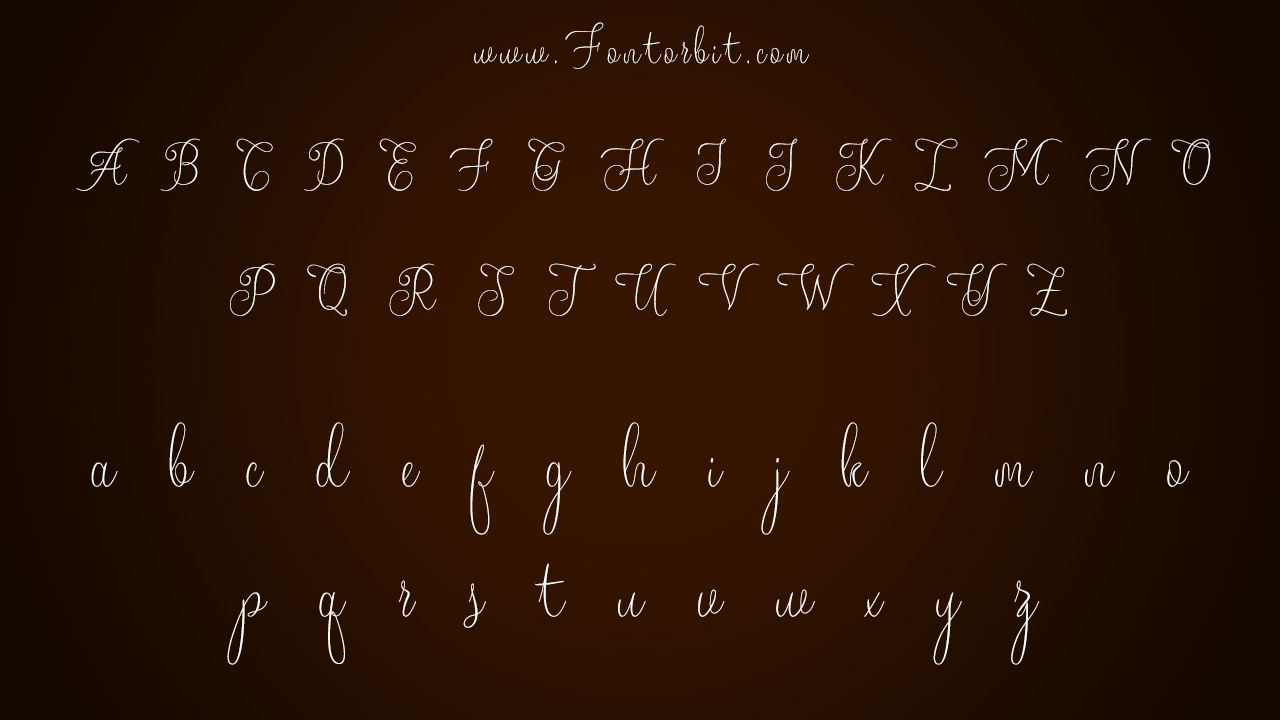
Yolanda Font is a stylish and elegant script typeface that embodies a blend of modern sophistication and classic charm. Inspired by hand-written calligraphy, this font captures the essence of graceful and fluid design.
Yolanda Font reflects a timeless and graceful style, featuring smooth, flowing lines and a varying baseline. The font family includes:
Yolanda Font’s elegant and versatile style makes it perfect for a variety of sophisticated and personal design projects. You will often see Yolanda Font in creative projects where a sophisticated and artistic touch is desired.
Its fluid design makes it a popular choice for elegant and high-impact contexts. Its unique design suits applications requiring a touch of modern luxury and personal flair.
- Wedding Invitations
- Personalized Stationery
- Fashion Designs
- Apparel Designs
Yolanda Font embodies a sophisticated and flowing design, reflecting elegance and modern charm. While it may not replicate any historical typeface, it captures the essence of refined script style. Pair Yolanda Font with clean, modern elements to create a balanced and eye-catching visual composition.
1.What Type Of Projects Is Yolanda Font Best Suited For?
Yolanda Font is ideal for elegant and high-impact projects such as wedding invitations, luxury branding, and stylish personal stationery. Its script style adds a touch of sophistication to any design.
2.What Is The Best Way To Use Yolanda Font In A Design?
Use Yolanda Font for prominent text elements, such as headings and invitations, to emphasize elegance and charm. It works well in larger sizes where you can fully appreciate its flowing script.
4.What Type Of Font Is Yolanda Script?
Yolanda Font is a script typeface known for its elegant, flowing lines.
5.What Is Yolanda Font Popular For?
Yolanda Font is popular for its modern sophistication and unique, hand-crafted appearance, perfect for stylish branding and high-impact designs.